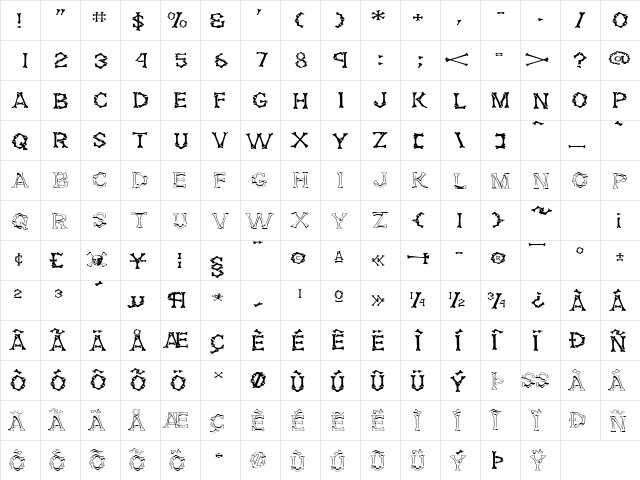
DemBonesExtended Regular Font Preview
DemBonesExtended Regular
DemBonesExtended Regular Font Details
Design Context for DemBonesExtended Typeface
DemBonesExtended is a composed and adaptable typeface that performs quietly and consistently across a wide range of design contexts.